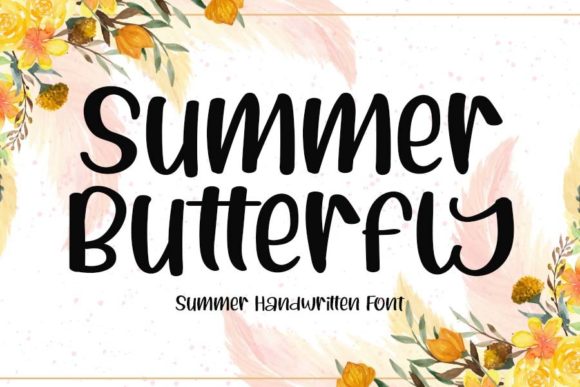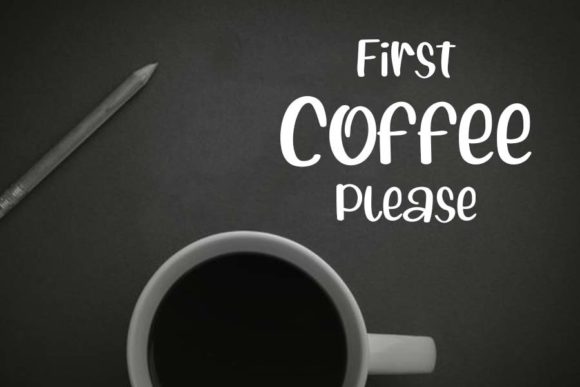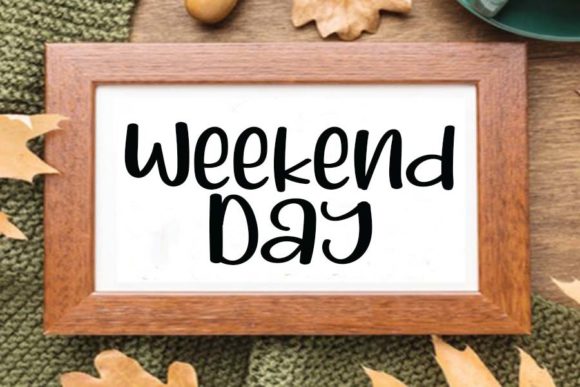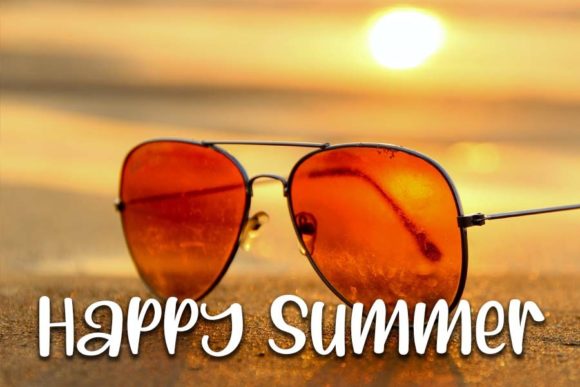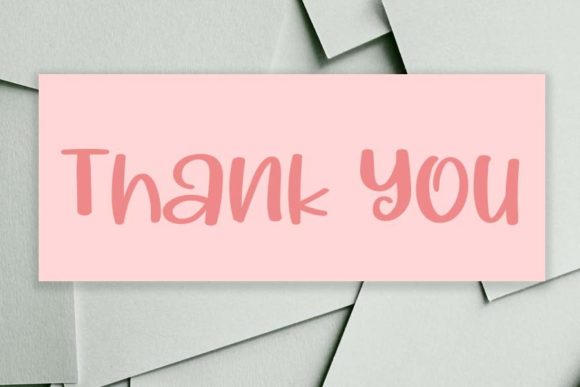
About Summer Butterfly Font
Summer Butterfly is a sweet and relaxed handwritten font. Its natural and unique style makes it incredibly fitting to a large pool of designs. Fall in love with it and bring your projects to the highest levels!